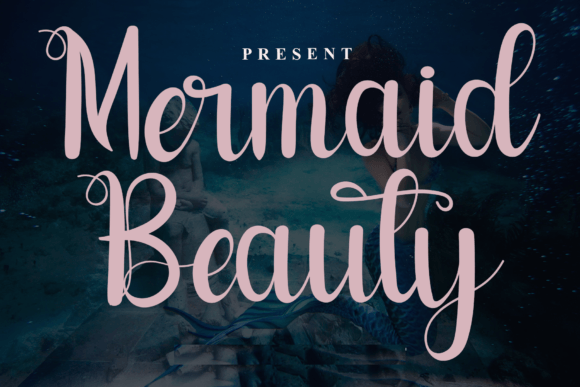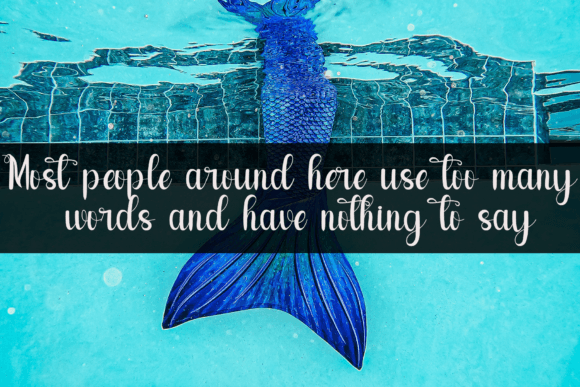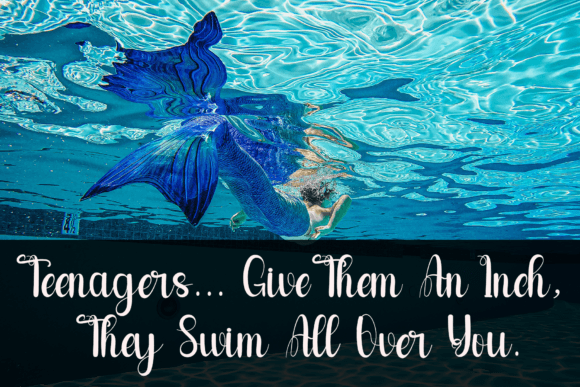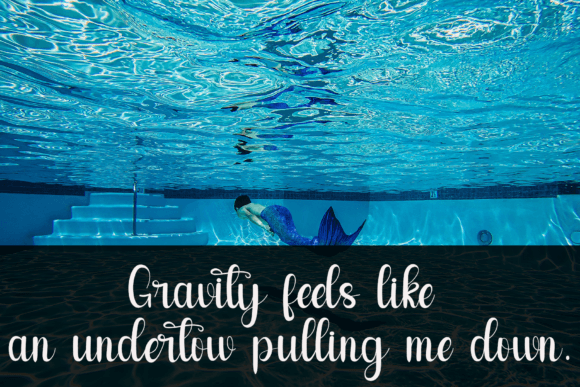
Mermaid Beauty Font
About the Mermaid Beauty Font
Get ready to be inspired by Mermaid Beauty Font, a fresh and dynamic typeface for modern creators. Mermaid Beauty is an exquisite handwritten font, masterfully designed to become a true favorite. It maintains its classy calligraphic influences while feeling contemporary and fresh. Fall in love with it and bring your projects to the highest levels!
Mermaid Beauty’s elegant, yet slightly playful, personality makes it ideal for projects requiring a touch of whimsical sophistication. It excels in headlines, logos, short-form text on invitations or packaging, and even social media graphics where its calligraphic charm shines. Avoid using it for large blocks of body text or UI elements; its handcrafted nature reduces readability in extended passages.
Pair Mermaid Beauty with a clean sans-serif like Lato or Open Sans for a balanced contrast, or for a more vintage feel, consider a classic serif such as Garamond or Playfair Display. These pairings provide readability and structure, allowing Mermaid Beauty to retain its visual appeal without compromising overall design clarity.
The font’s overall mood is sophisticated and approachable, making it a good choice for brands associated with beauty, fashion, lifestyle, or artisanal products. Its charm works particularly well for projects targeting a female demographic.
Mermaid Beauty Font Usage Examples
Mermaid Beauty Font Example